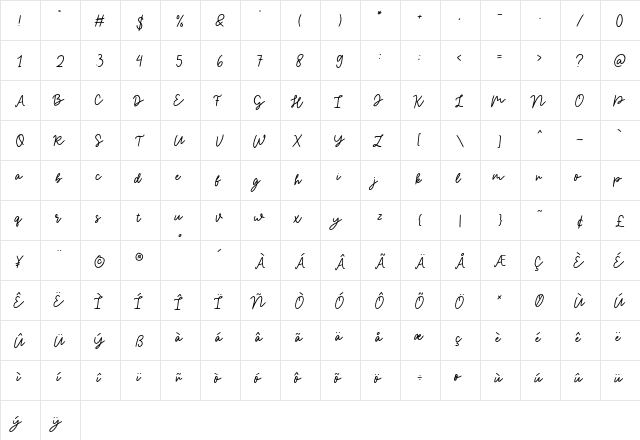
Magical_Shiny_Script Regular
Design Context for Magical_Shiny_Script Typeface
Magical_Shiny_Script flows with the natural rhythm of handwritten lettering, making it ideal for designs that call for warmth and personal expression.
Font Pairing: Combine Magical_Shiny_Script with a simple geometric sans for maximum contrast — the tension between flowing curves and clean structure is a classic typographic pairing.
Pro Tip: Use Magical_Shiny_Script for short runs of text — names, titles, or taglines. Extended body copy in script faces tires the eye quickly.